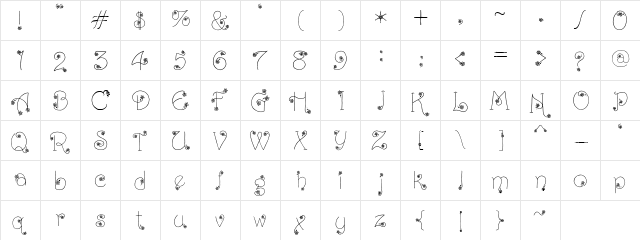
PC Forget Me Not Regular
Design Context for PC Forget Me Not Typeface
PC Forget Me Not is a composed and adaptable typeface that performs quietly and consistently across a wide range of design contexts.